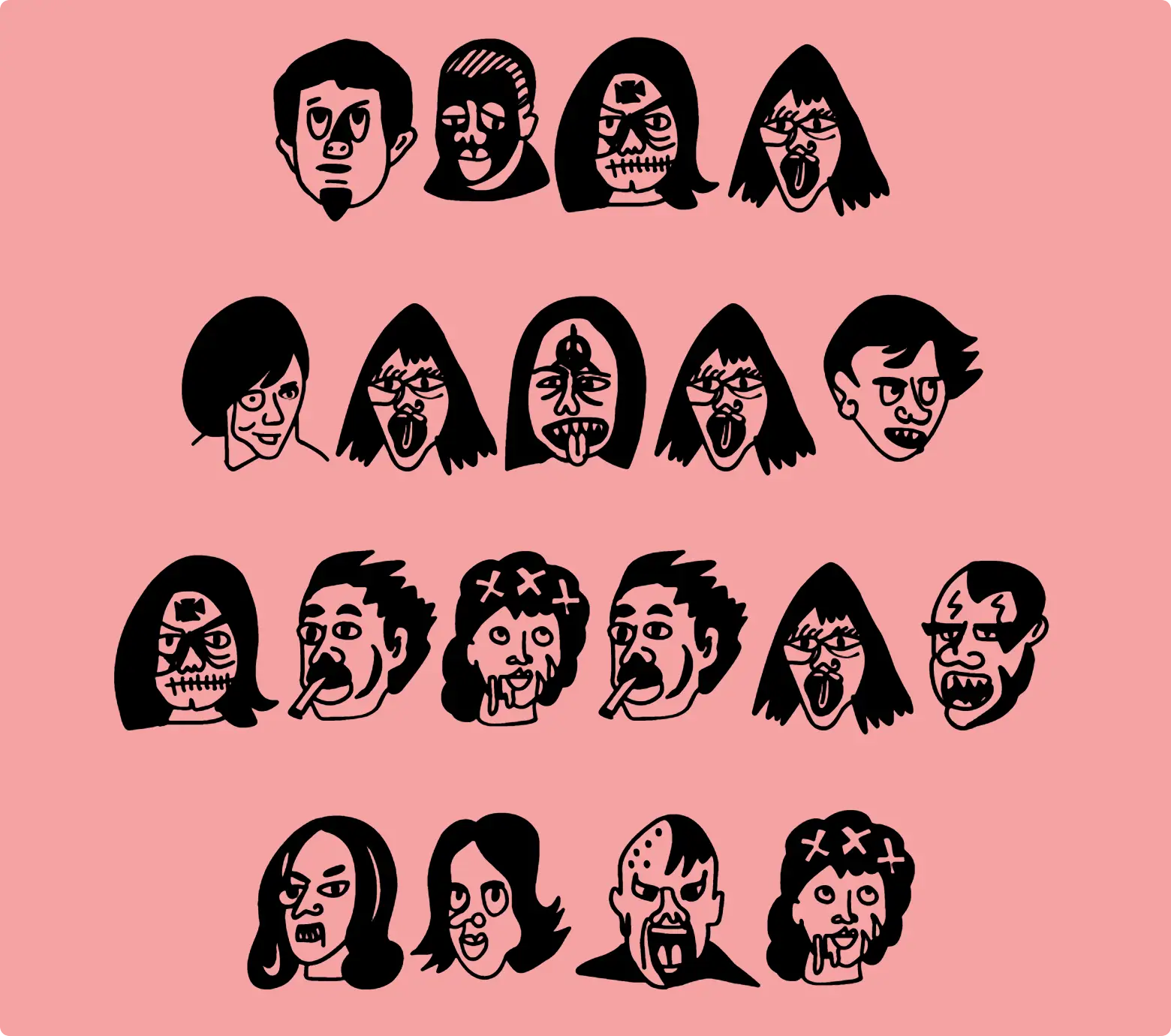
Rare Celebrities Font
Rare Celebrities
Rare Celebrities is a dingbats font designed by Woodcutter Manero. It's a picture font: each key types a little icon or decoration instead of a letter. You can download it for free and test it with your own words in the preview above.
With complete upper and lowercase letters and all ten digits, Rare Celebrities is ready for real wording, not just a single headline. Common punctuation such as &, !, ? and @ is included as well. It also has the accented letters you need for Spanish, French, German, Portuguese and Italian.
Designers usually reach for fonts like Rare Celebrities when they're making icons, decorative borders and themed designs. Pick the symbols you want from the character map, then type those keys. Change the font size and color to style the icons like normal text.
Yes. Rare Celebrities includes the accented letters needed for Spanish, French, German, Portuguese and Italian, so it works for more than just English.
Use it next to any regular font to add icons, bullets or borders to your design.